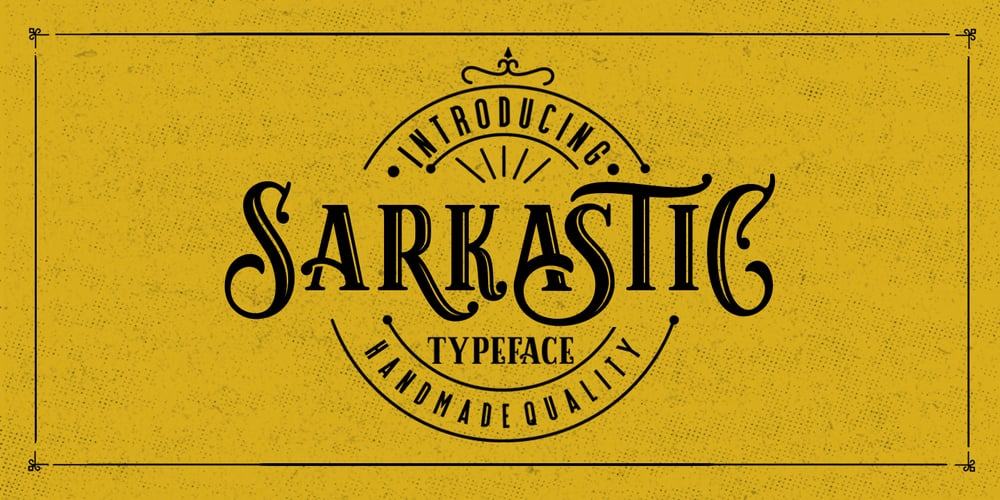
Sarkastic Font Family was designed by Teuku Deky Firnanda and published by Graptail. Sarkastic contains 2 styles and family package options. Sarkastic is a font display is made by hand, inspired by classic posters. Sarkastic comes with uppercase, lowercase, numerals, punctuations and so many variations on each characters include opentype alternates, common ligatures and also additional swash to let you customise your designs. Perfect to use for Logotype, Letterhead, Poster, Apparel Design, Label and etc.